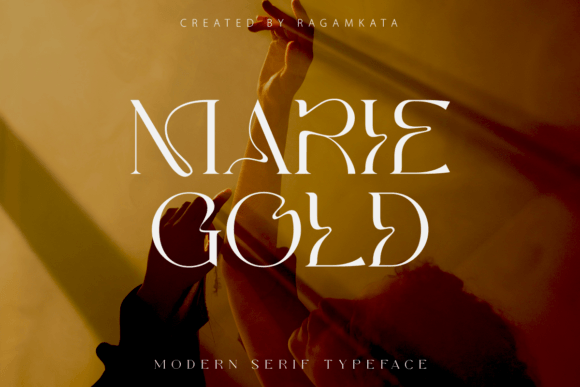
Introducing Mariegold Font: The Timeless Serif, An Ode to Elegance
In a digital world saturated with visual noise, Mariegold emerges as a beacon of sophistication and timeless beauty. This captivating serif font, crafted by the creative minds of RagamKata Studio, is not merely a font; it's an expression of artistry, a testament to the enduring power of classic design.
Mariegold's essence lies in its intricate yet modern serifs, exuding an air of elegance and refinement. Each letter is a work of art, expertly shaped with delicate curves and sharp angles, striking a perfect balance between tradition and modernity. This exquisite font is a versatile masterpiece, perfectly suited for a wide range of creative projects, from enchanting wedding invitations to captivating logos that leave an unforgettable impression.
With Mariegold, your designs will transcend the ordinary, captivating your audience with a timeless charm that resonates deeply. Unleash your creativity and watch as your words dance gracefully across the page, imbuing your projects with an aura of sophistication that is sure to leave a lasting impact.